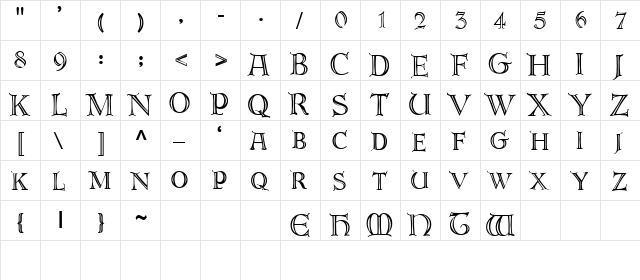
DeRoos Caps
Design Context for DeRoos Typeface
DeRoos is a composed and adaptable typeface that performs quietly and consistently across a wide range of design contexts.